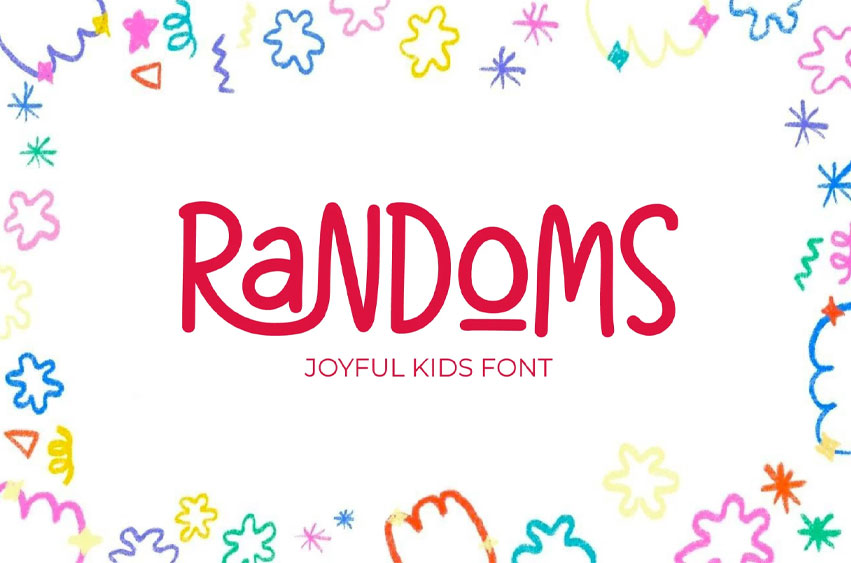
Randoms Font
Randoms Font is a cheerful and lively kids’ font designed to spark creativity and imagination! With its bouncy letters, hand-drawn feel, and whimsical charm, Randoms is the perfect choice for children’s storybooks, playful branding, birthday cards, educational materials, and more. This font turns any project into a joyful experience, inviting smiles and playful vibes with every word.
• Uppercase alphabet A-Z
• Lowercase alphabet a-z
• Numbers 0-9
• Some punctuation
• Alternates & Ligatures